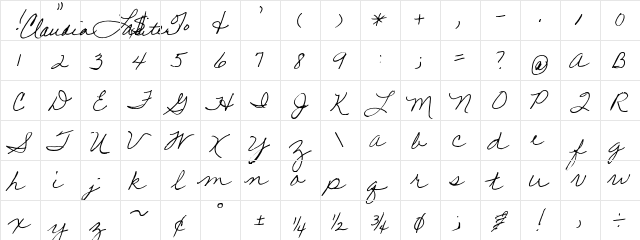
Claudia Regular
Design Context for Claudia Typeface
Claudia takes a measured approach to typography — its balanced proportions and neutral character make it a reliable workhorse for both digital and print work.